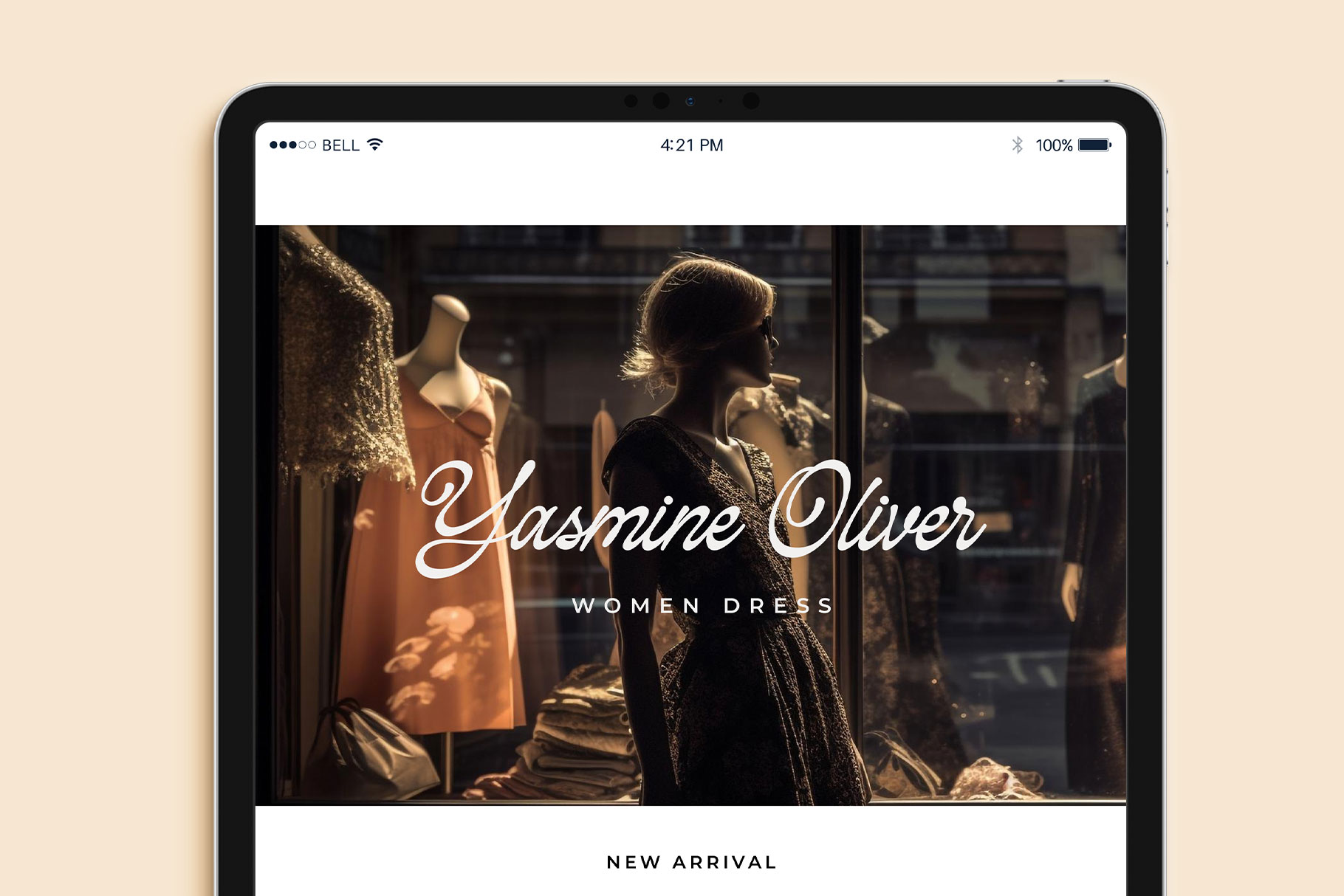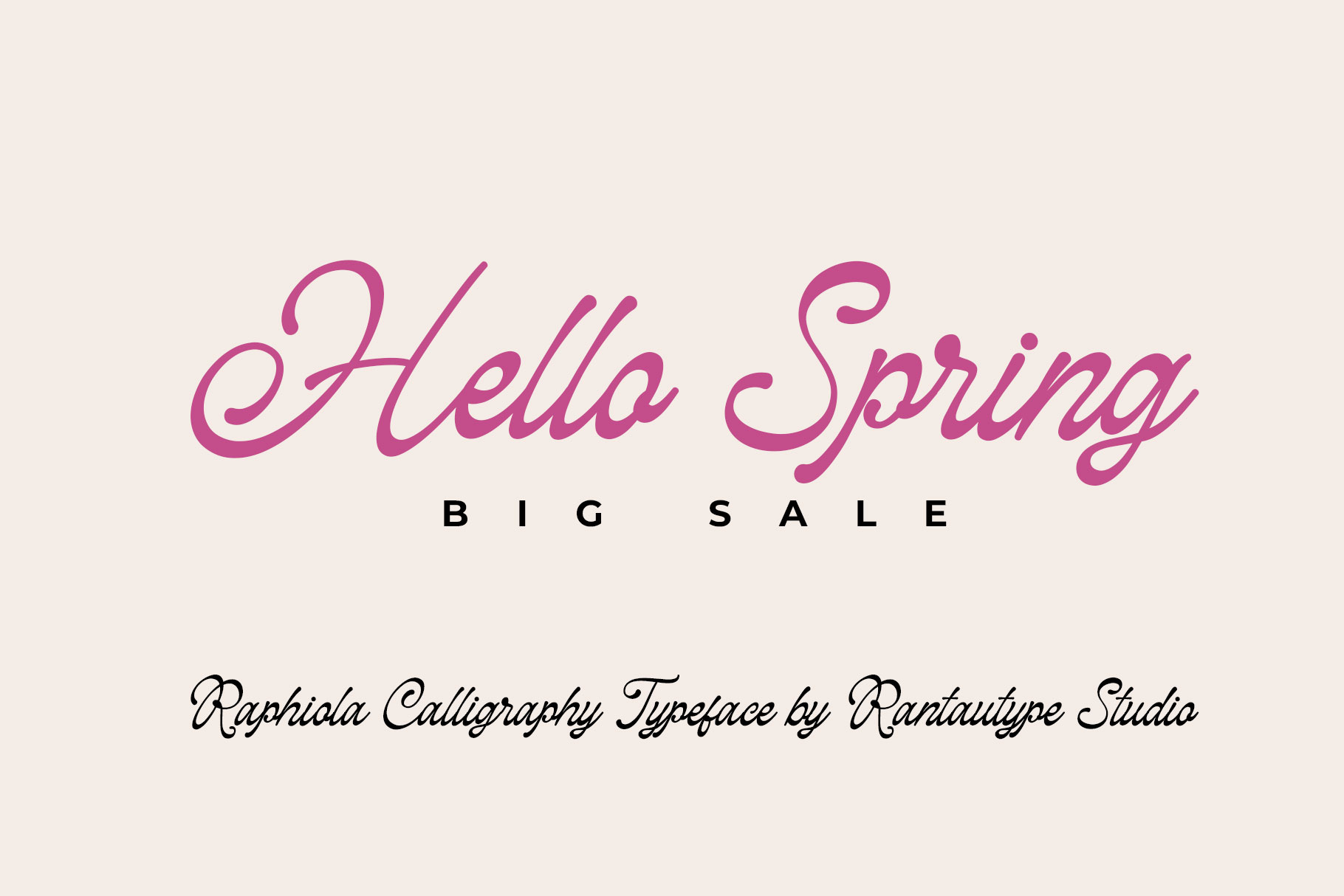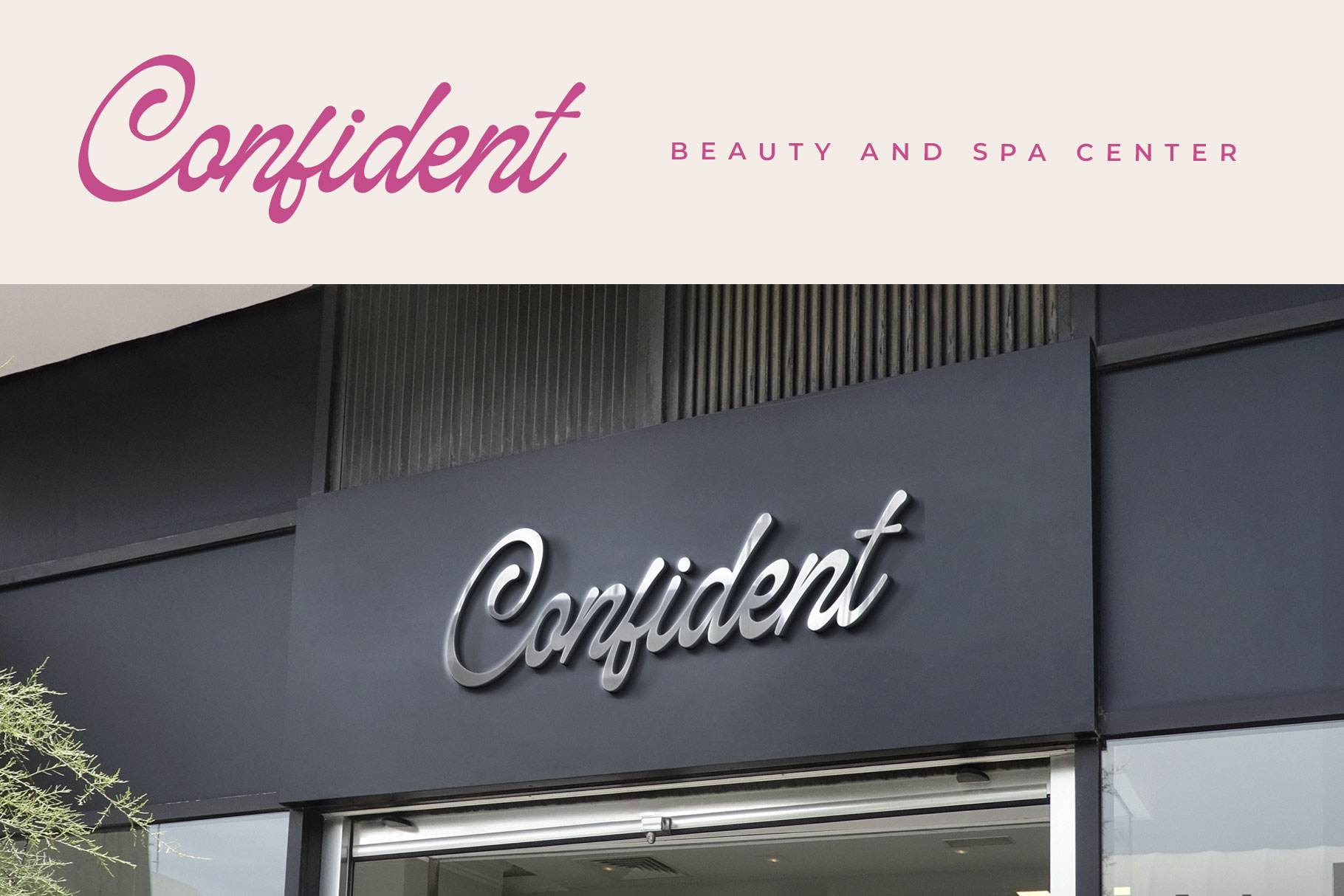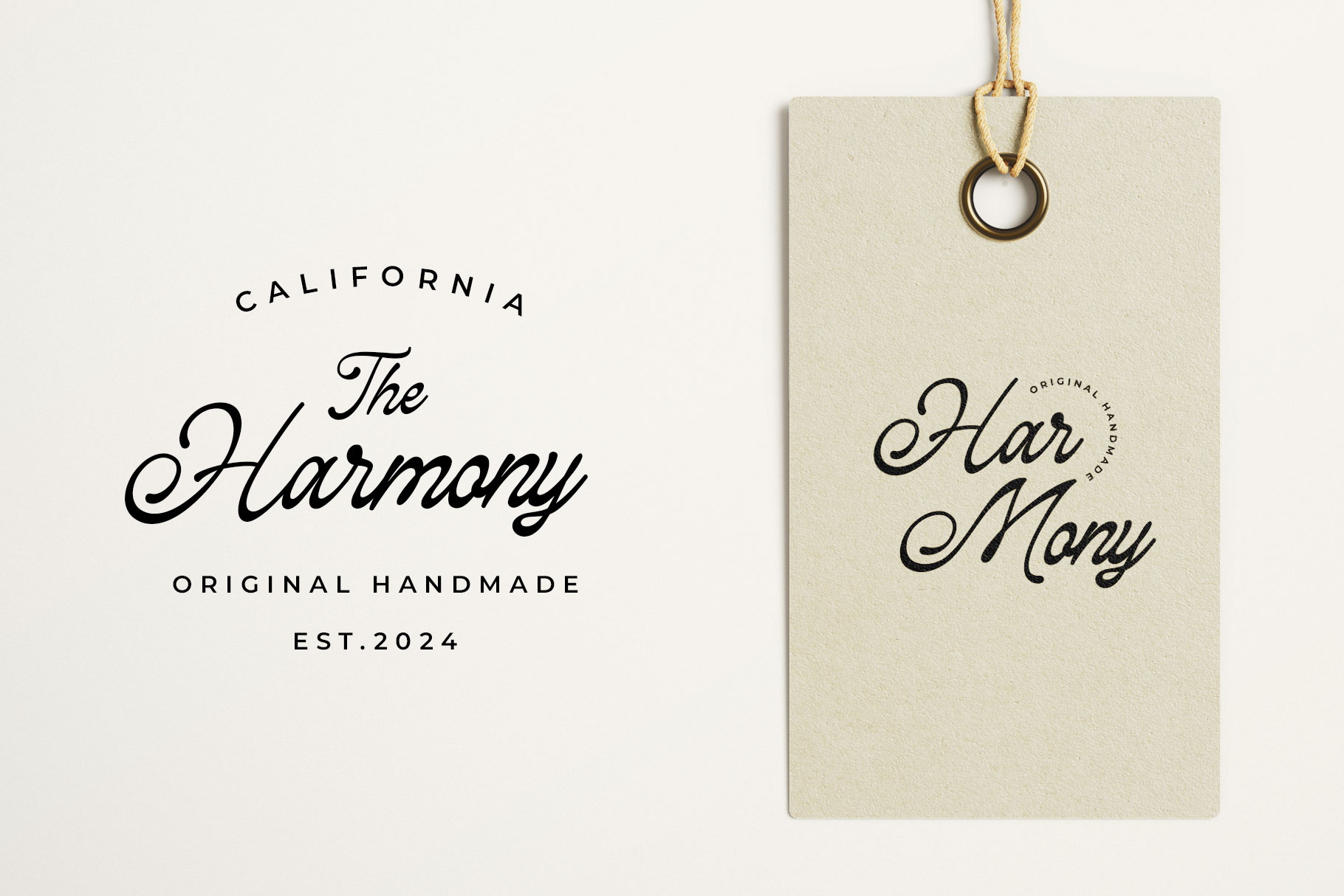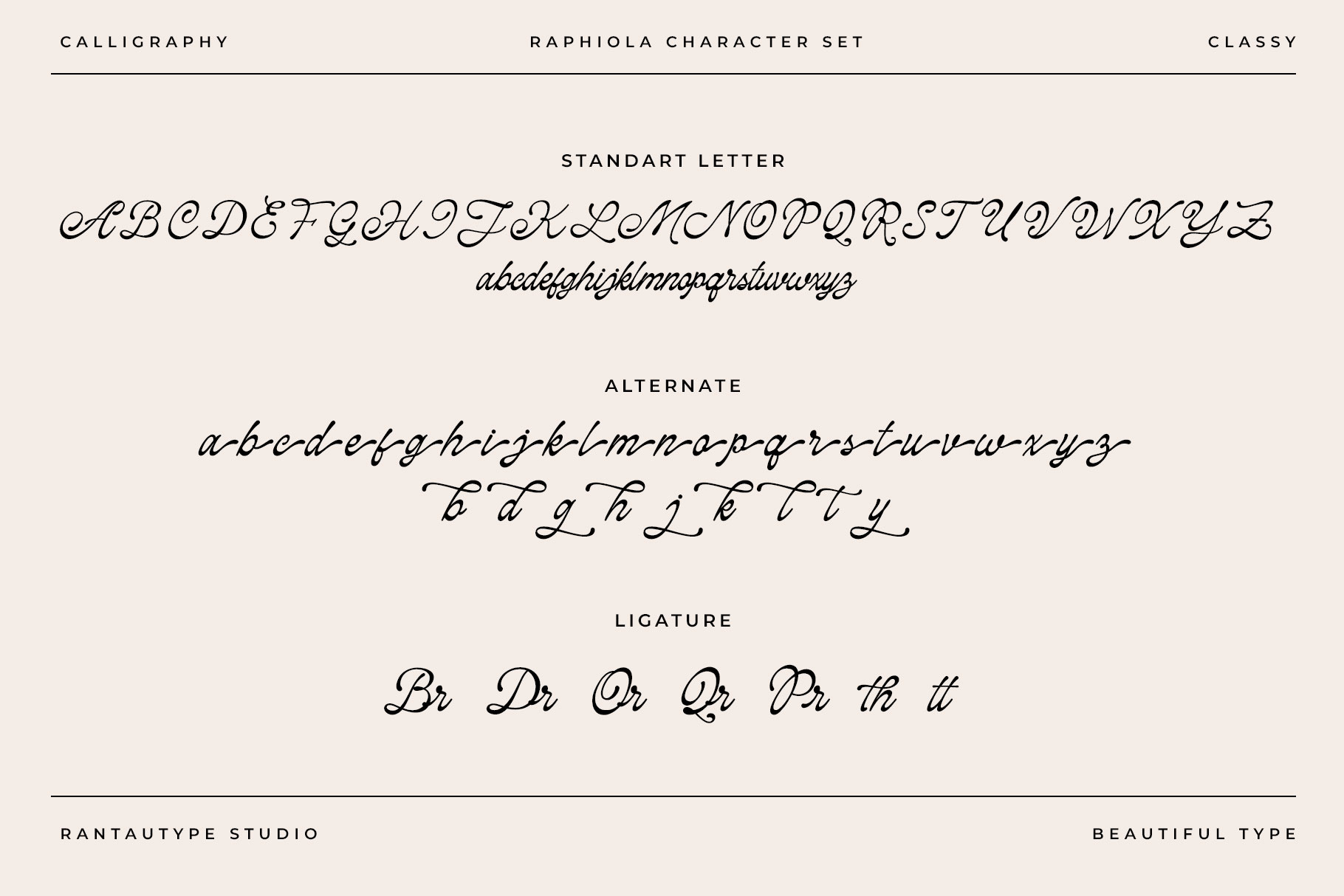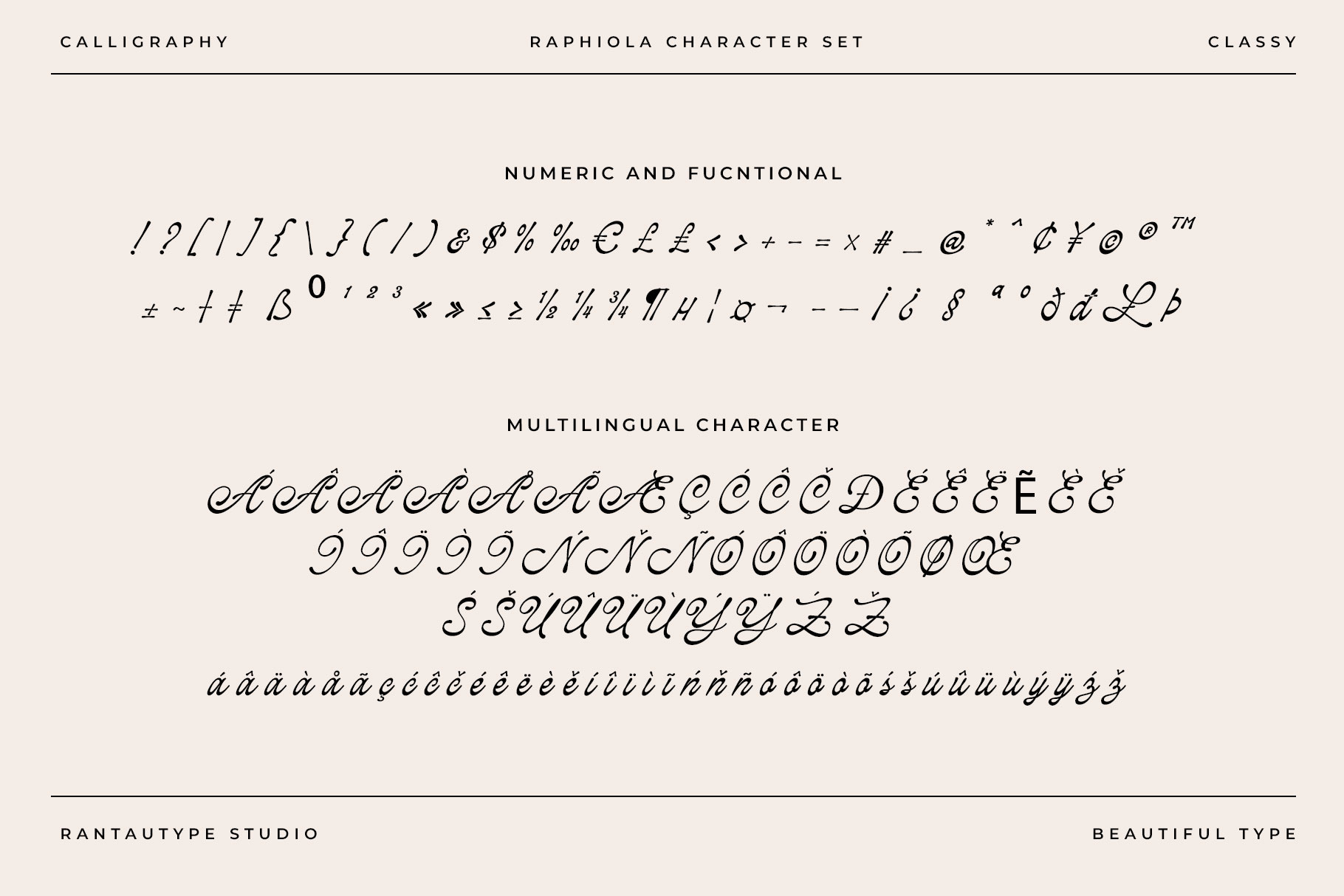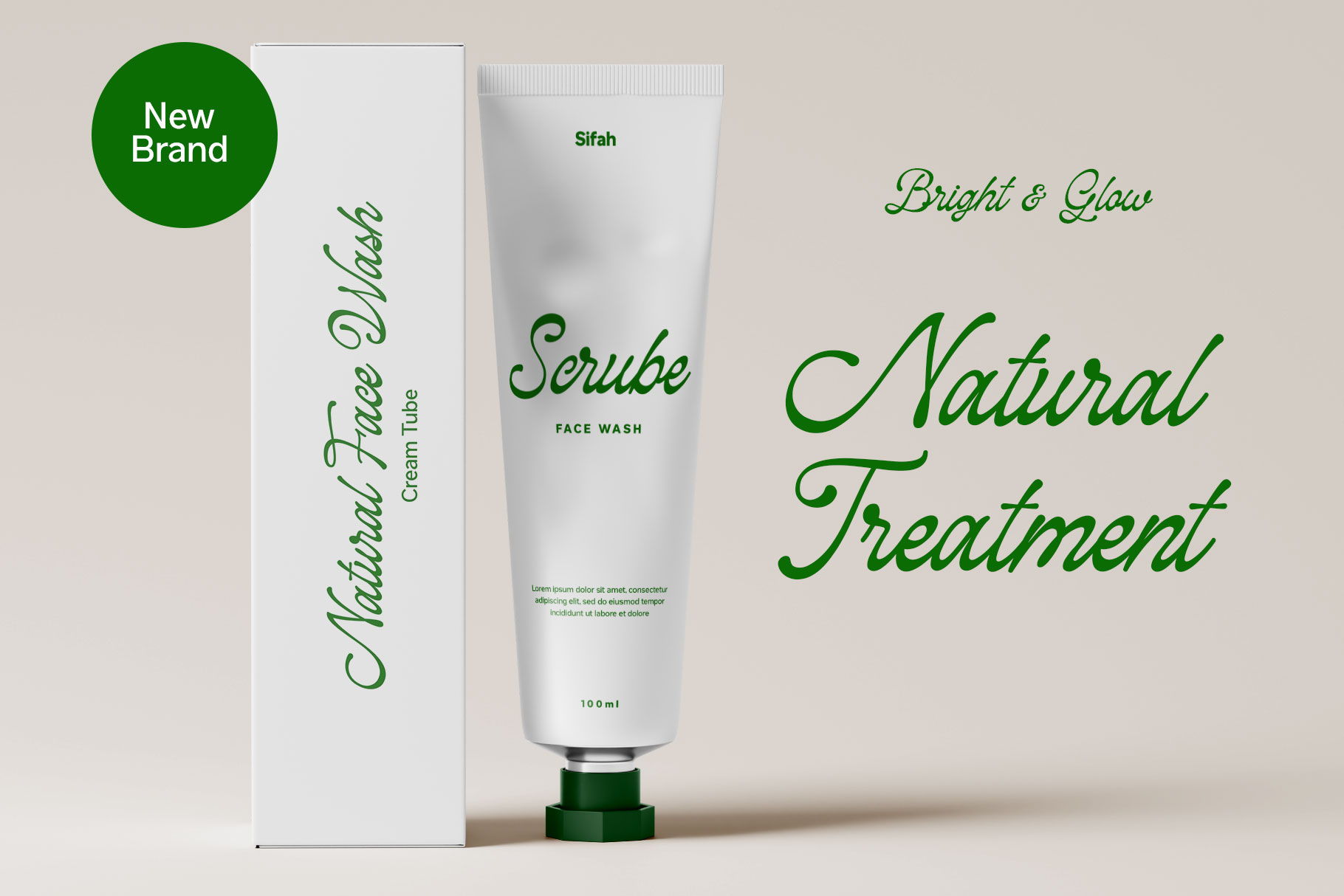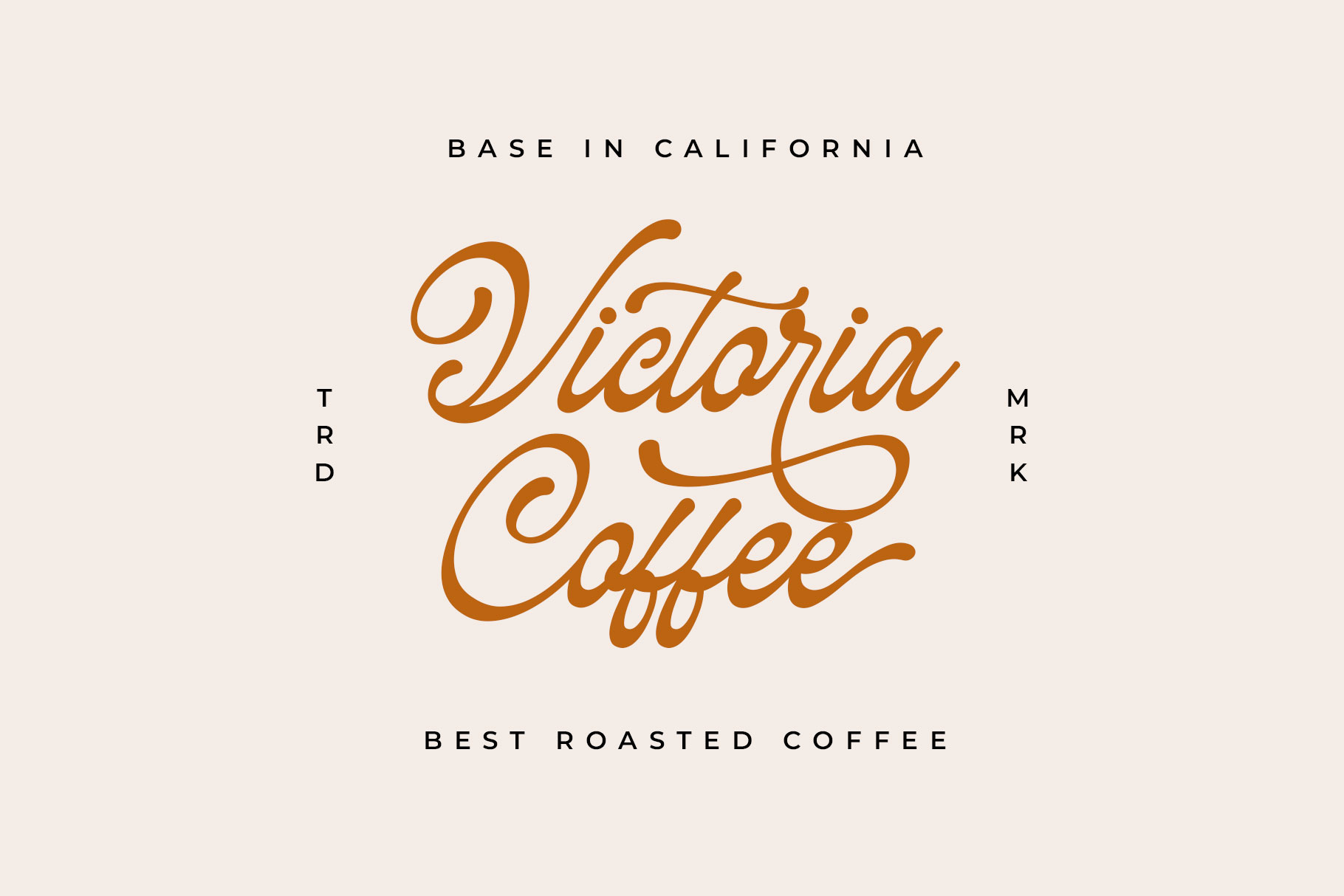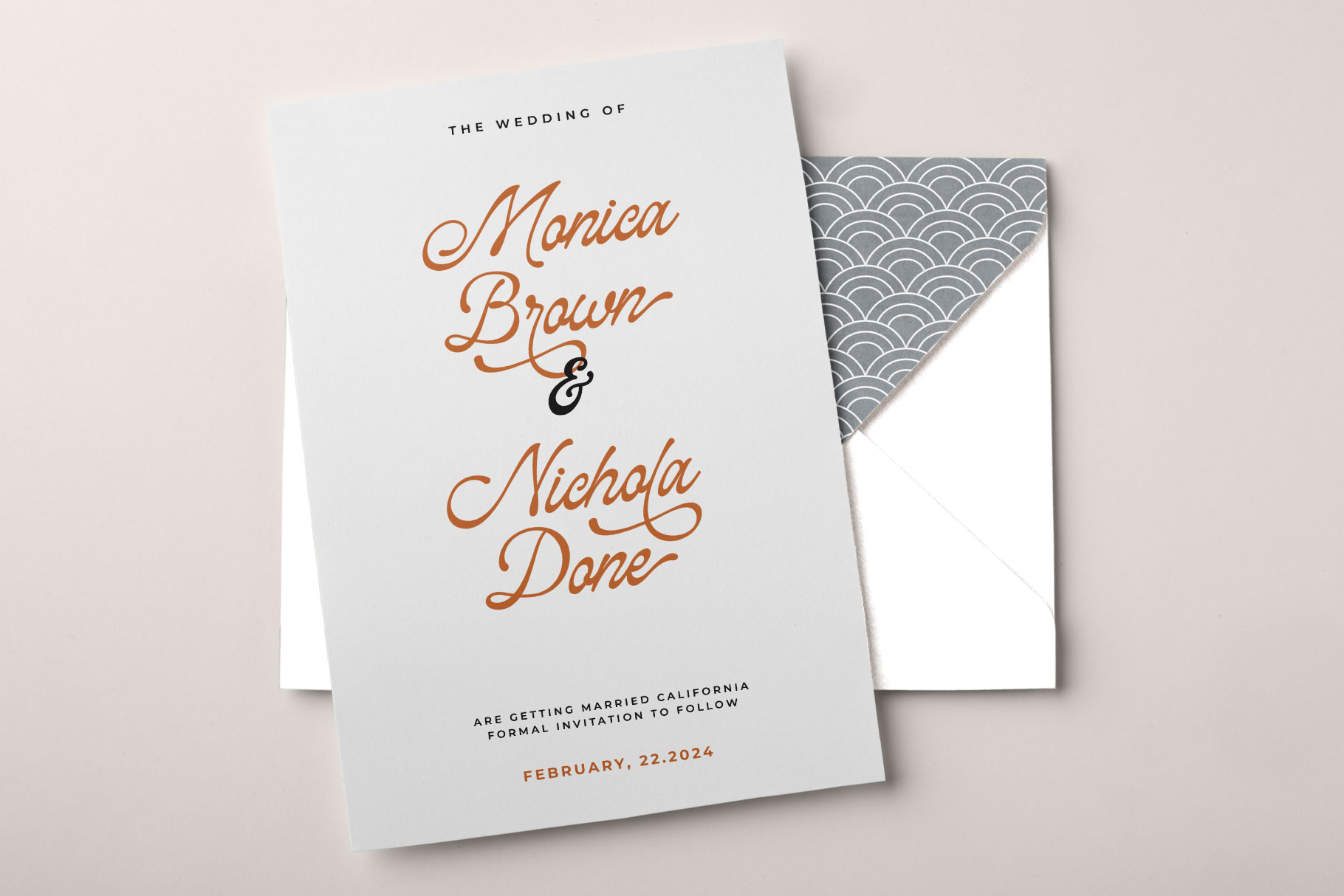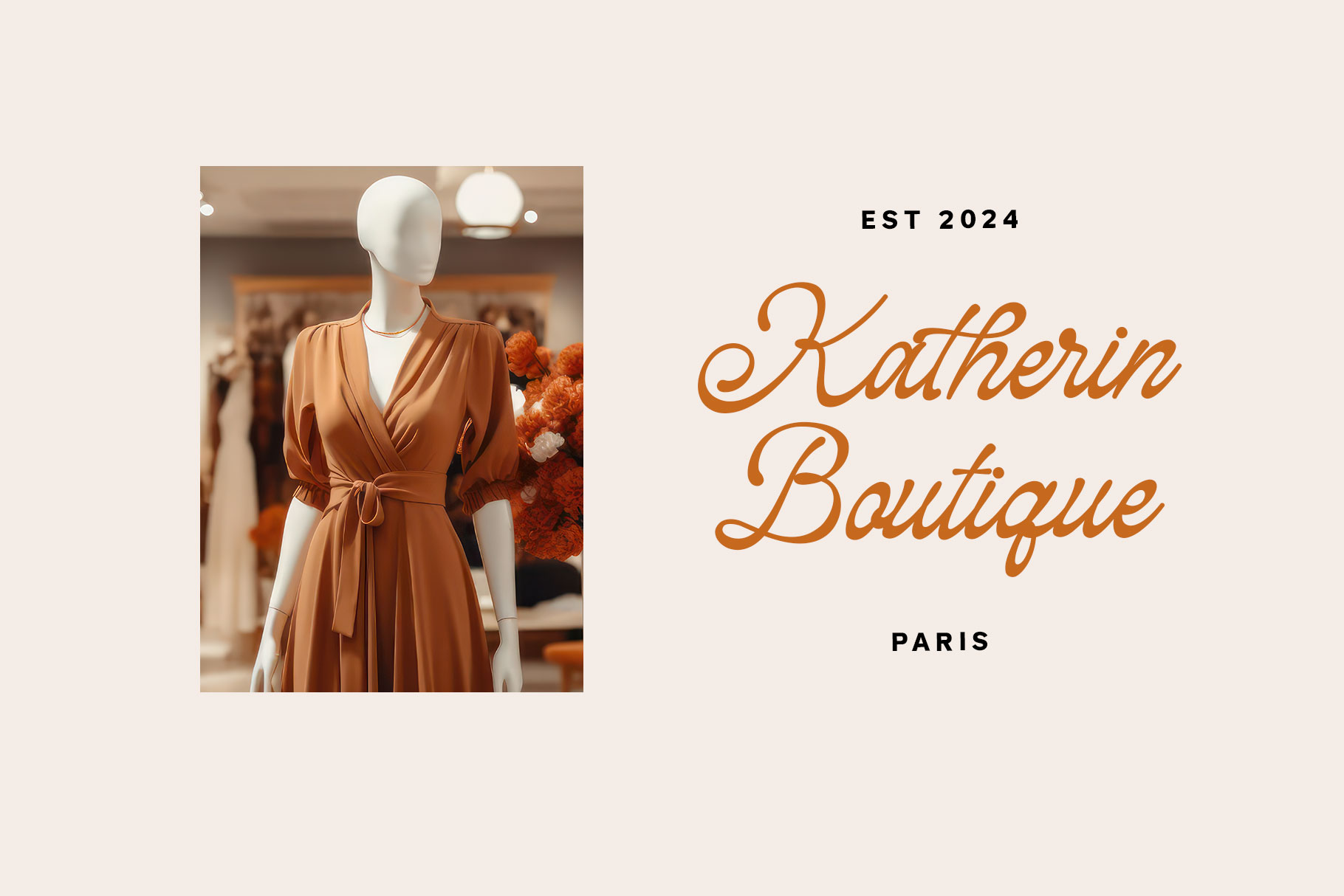
Raphiola Modern Casual Script Font
Raphiola is modern casual script font inspire with boho graphic style. Raphiola bring creative idea to help you build visual design project more attractive and sophisticated.
Raphiola is perfectly choice for any creative endeavor, chic, lifestyle design such as logos, title, watermark on photography, cover, branding, display and magazine, wedding event, corporate brand, quotes, album cover, business card, business project and many other design project with handwritten taste.